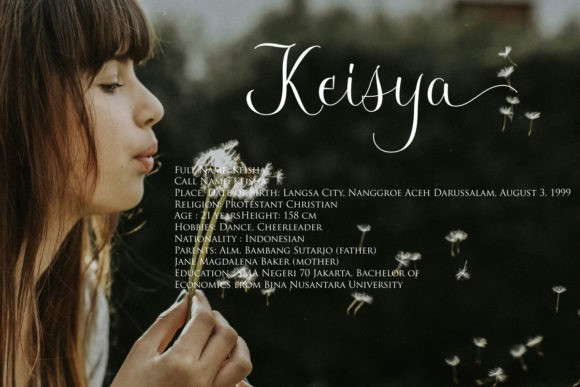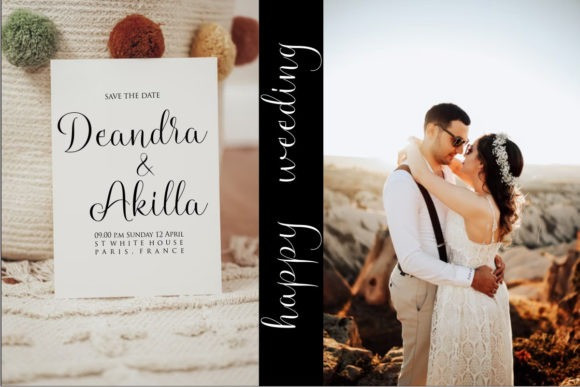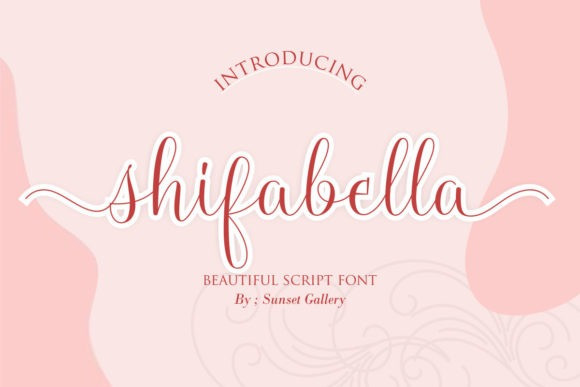
Shifabella Font
Shifabella Font is a beautiful and refined script font. It has a classy, elegant and modern look that can be used for a variety of design ideas.